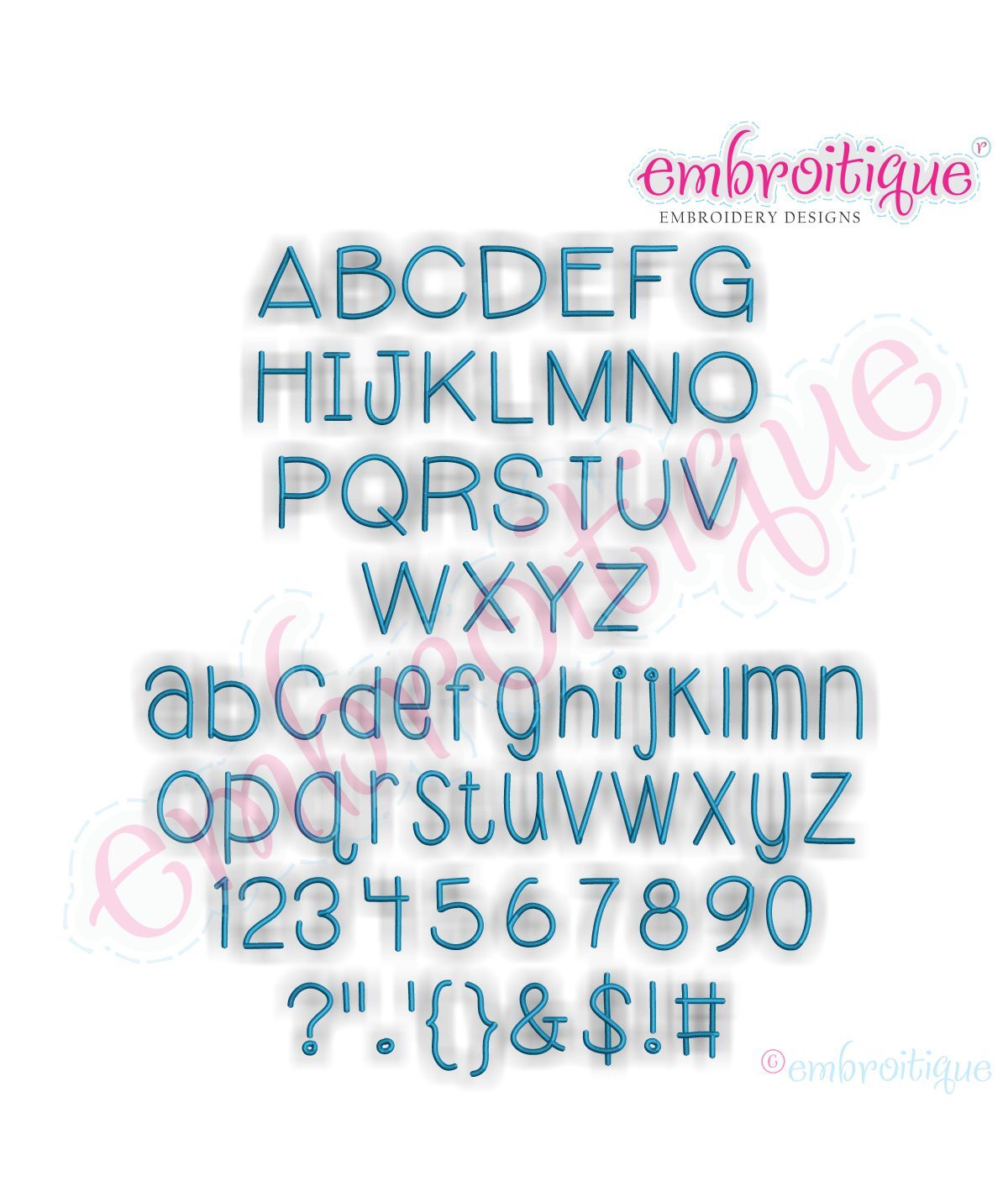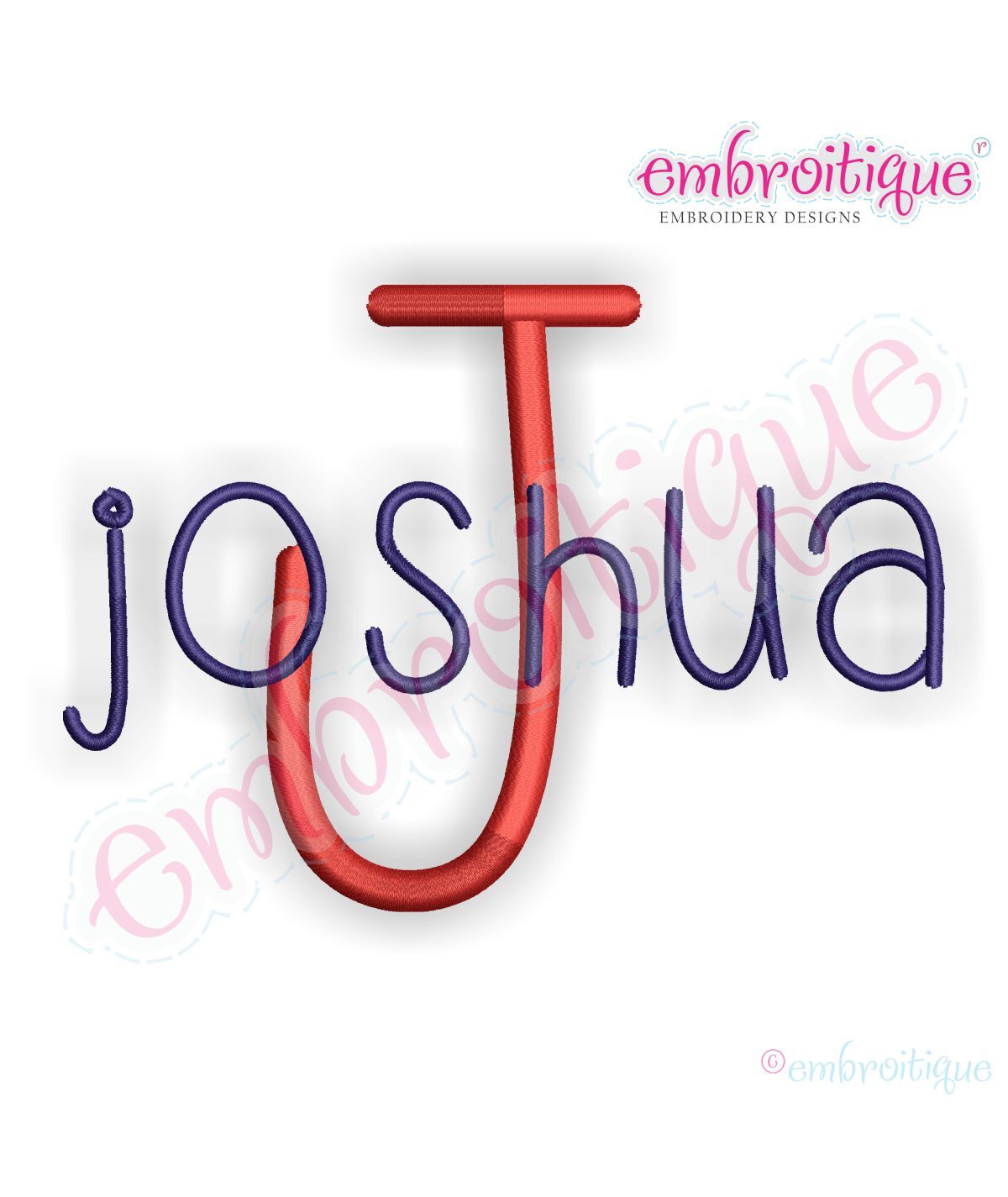
Joshua Adorable Whimsical Handwritten Font - Great for boys & girls!
Our Joshua machine embroidery monogram alphabet font is a playful handwritten font perfectly suited boys and girls of all ages! Â A really fun font that will add a touch of quirk or whimsy to any project you can imagine!